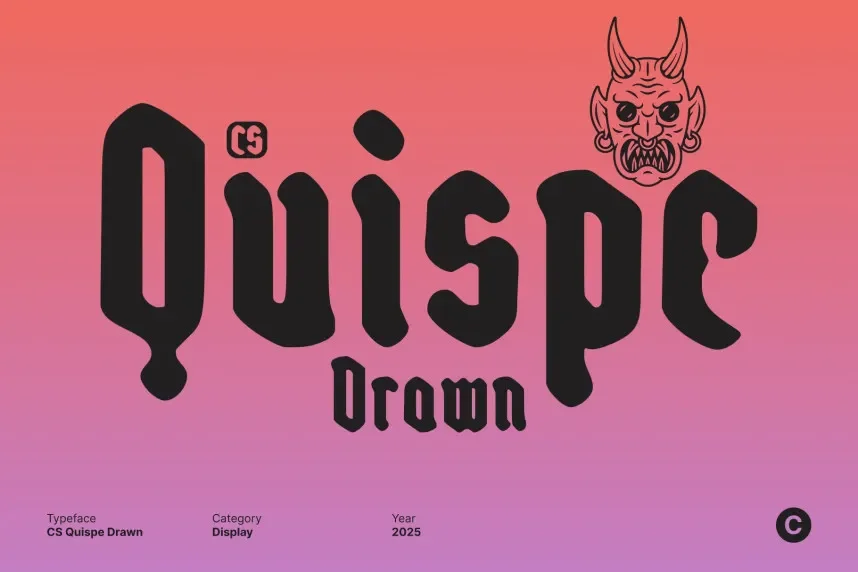
CS Quispe Font is a unique, hand-drawn script typeface with smooth curves and artistic flair. Its flowing letterforms and graceful swashes make it perfect for designs that require elegance and personality, such as invitations, greeting cards, and luxury branding.